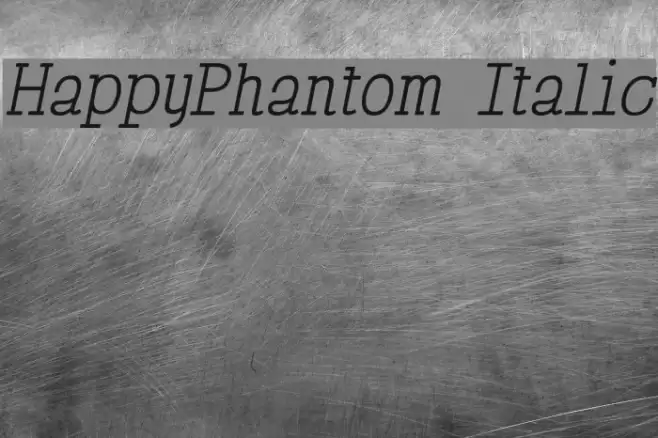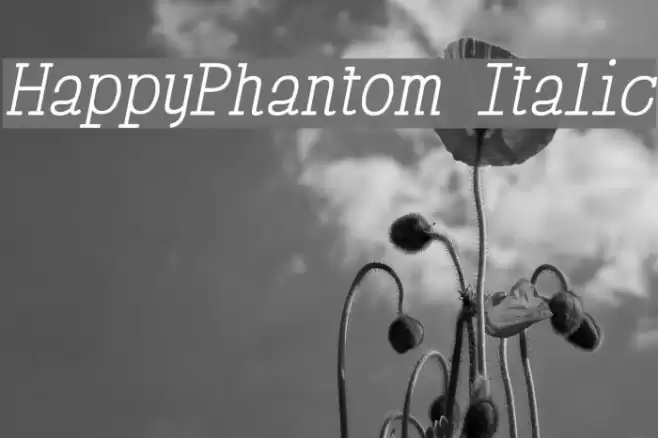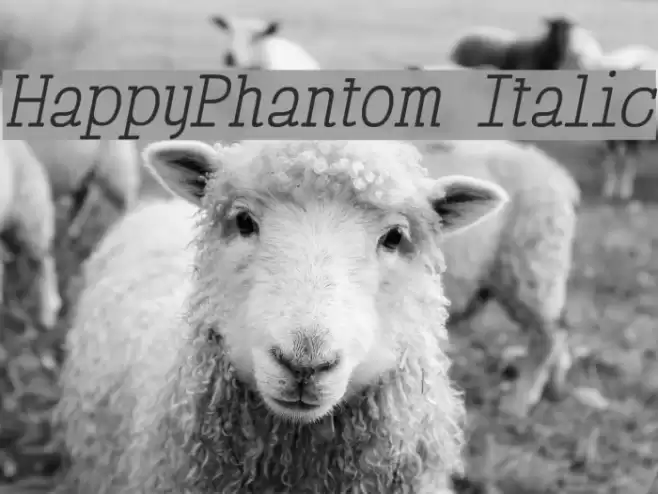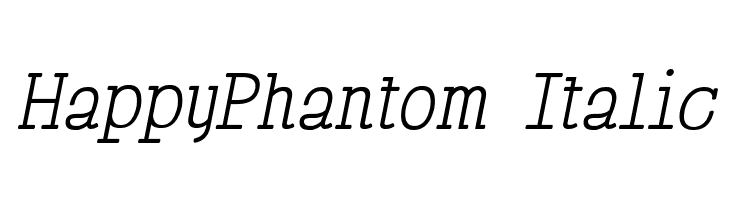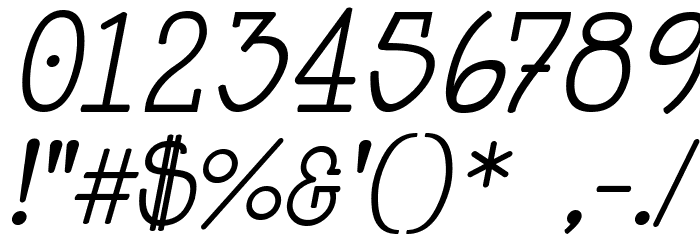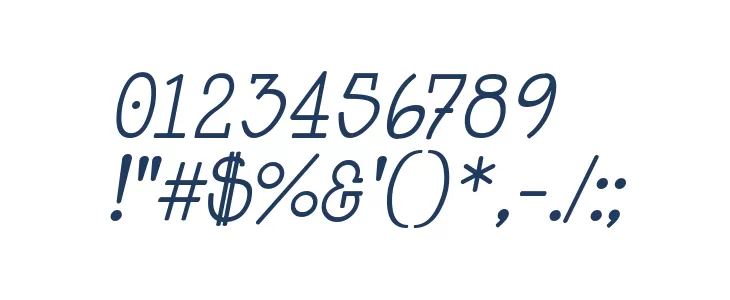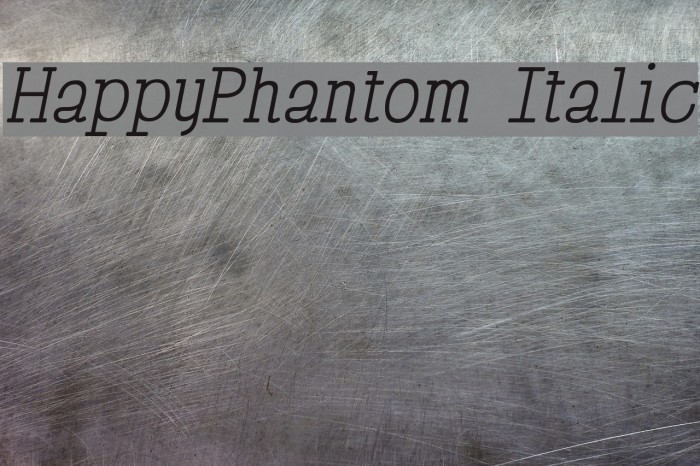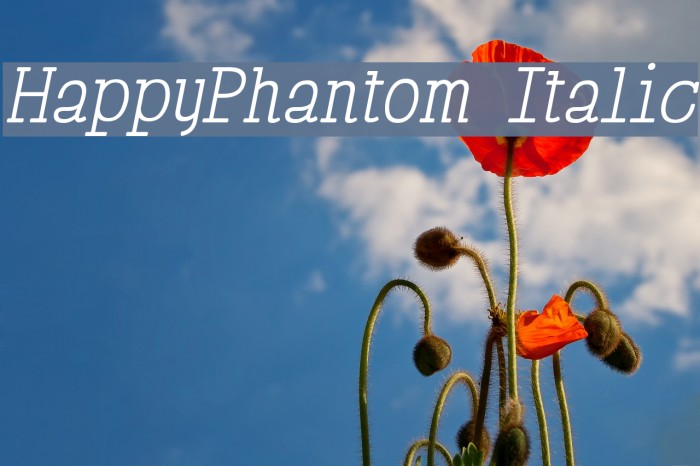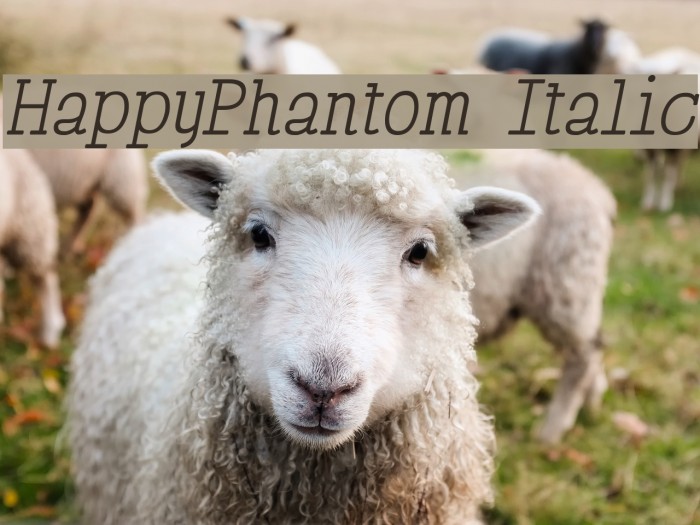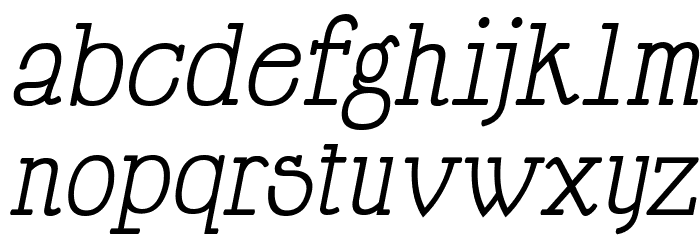
HappyPhantom Italic Font
HappyPhantom Italic Description
This font features an elegant and flowing italic style, characterized by its smooth curves and slightly slanted letters. The uppercase letters maintain a classic form with a modern twist, while the lowercase letters exhibit a graceful and fluid motion. The numerals are clear and distinct, ensuring readability. Special characters are designed with a consistent style, adding to the font's cohesive appearance. The overall design is both sophisticated and approachable, making it suitable for a variety of applications.
An elegant italic font with smooth curves and a modern twist from Uncategorized fonts.
- Proposed Projects: Ideal for use in fashion magazines, elegant invitations, branding for luxury products, and artistic book covers.
- Use Case: Headlines, Logos, Invitations